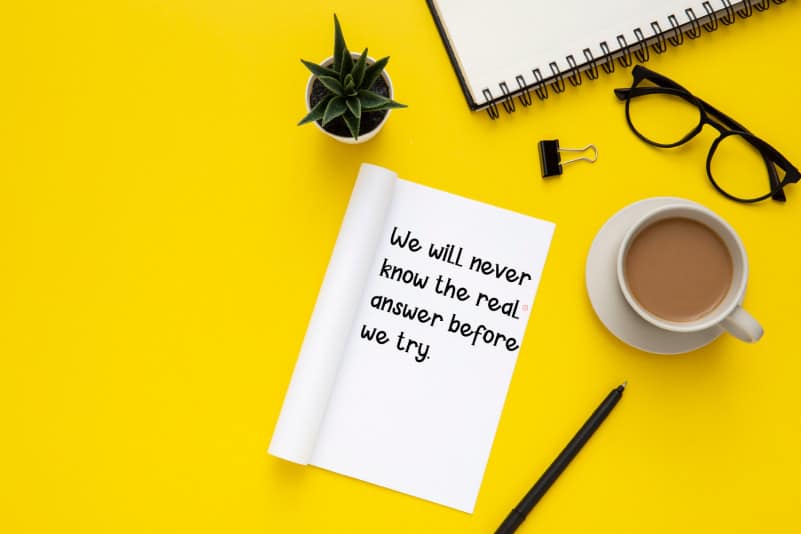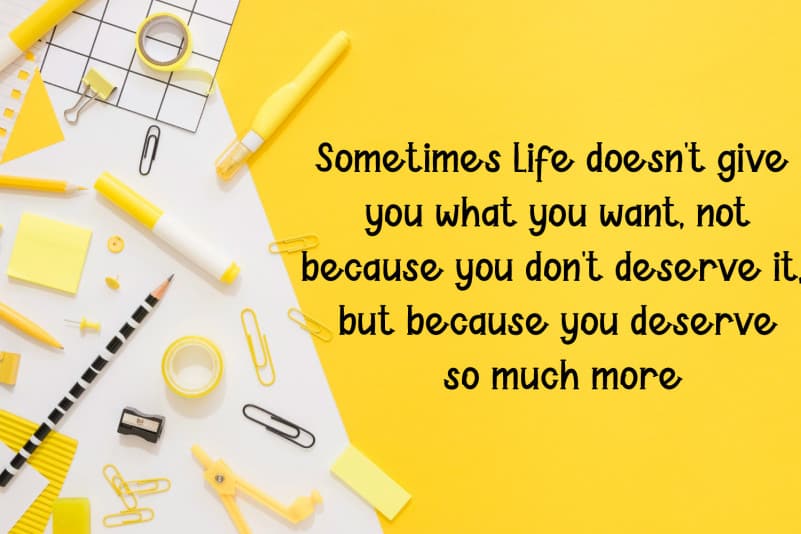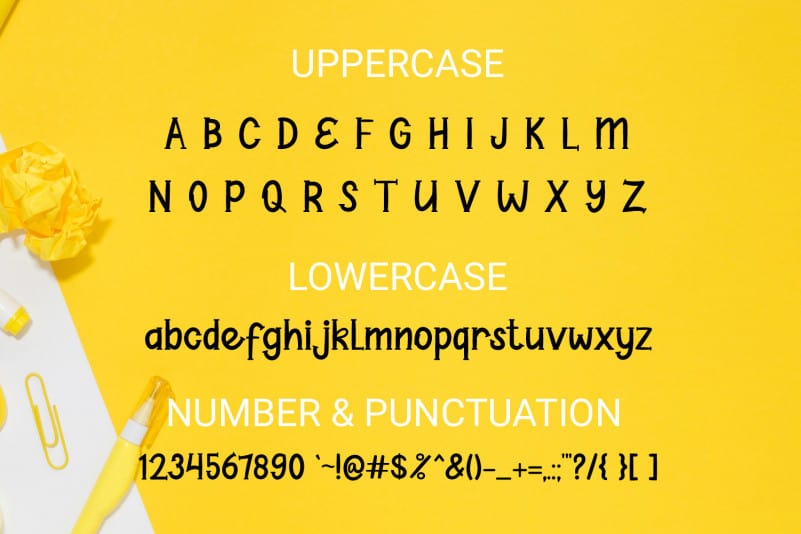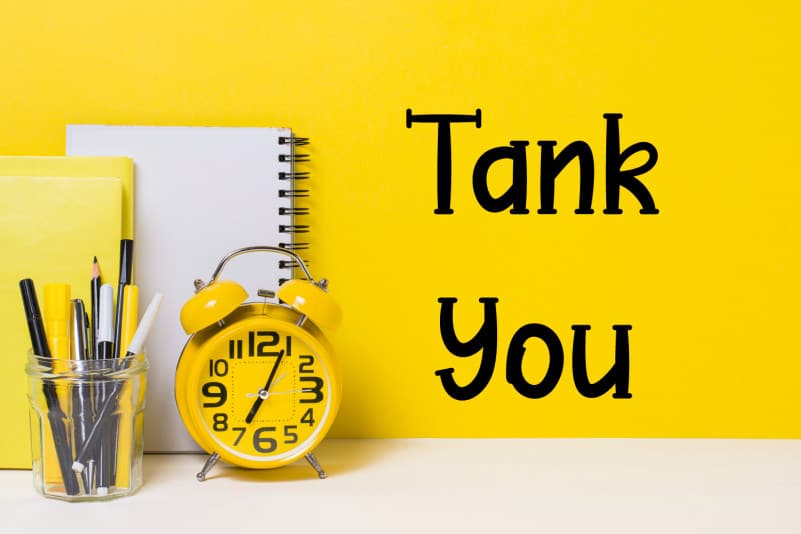
Write work Display Font
Write work Display Font is a cute and colorful display font. Whether you’re looking for fonts for Instagram or calligraphy scripts for DIY projects, this font will turn any creative idea into a true piece of art!